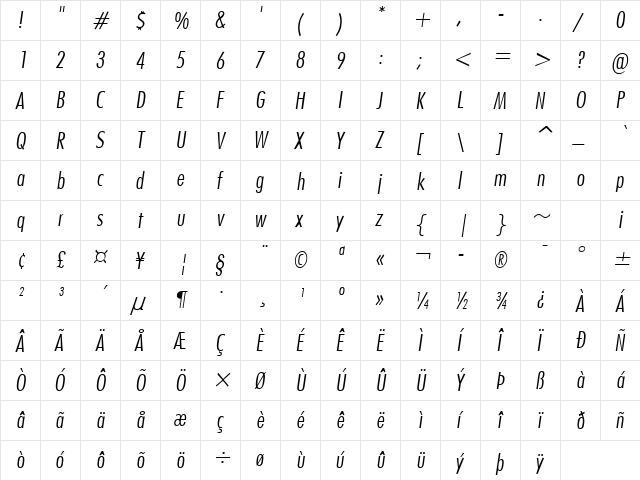
Futuri Condensed Light Oblique Font Preview
Design Context for Futuri Condensed Light Typeface
Futuri Condensed Light has a distinctly futuristic character, with geometric precision and clean angles that feel at home in technology, gaming, and sci-fi contexts. The dynamic lean of this cut emphasises speed and emphasis in any layout. Its slender proportions lend an understated elegance to any composition. Its narrow stance lets it pack a punch even in space-constrained designs.
Pro Tip: Try Futuri Condensed Light with generous letter-spacing in UI labels and navigation — the geometric forms benefit from room to breathe.